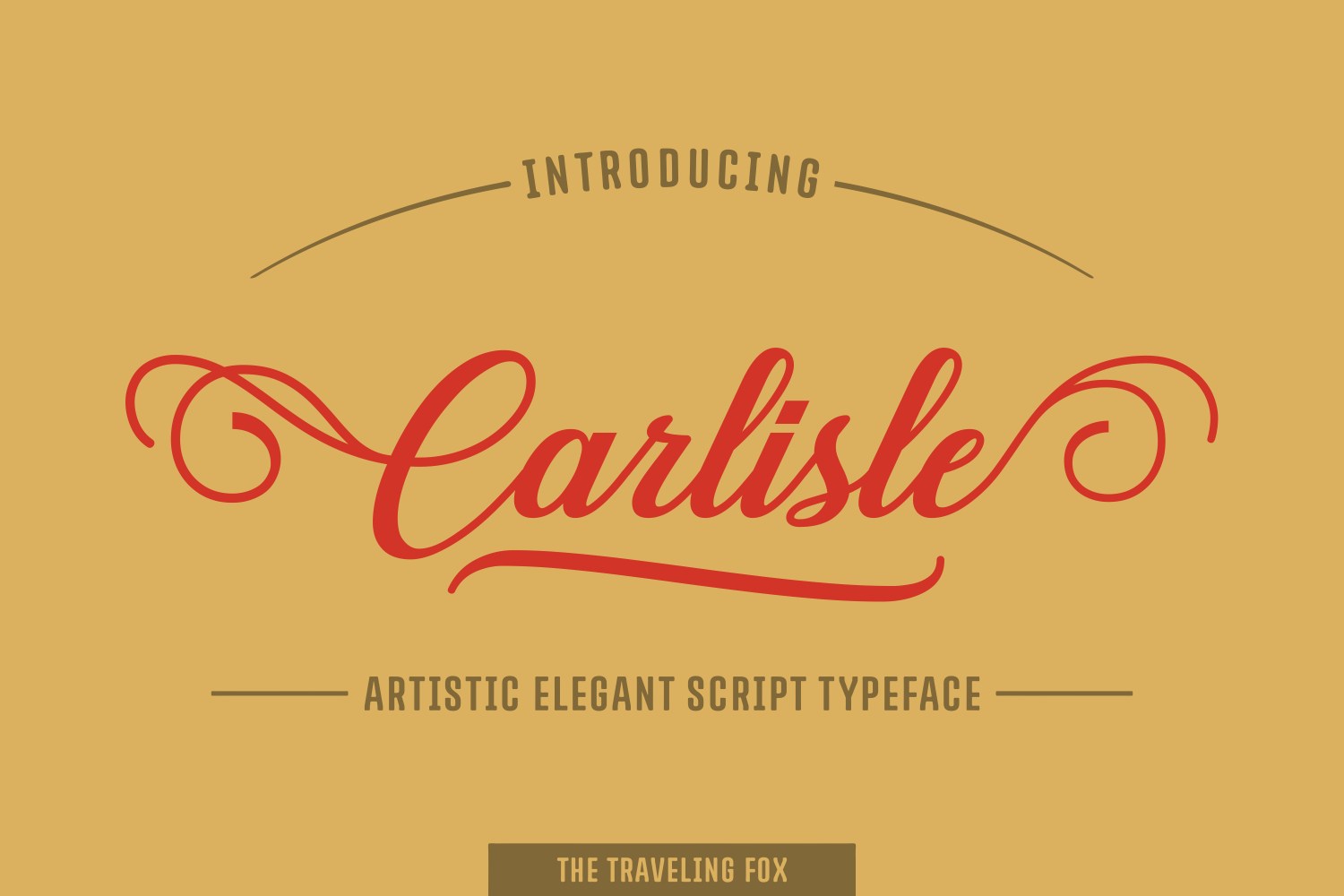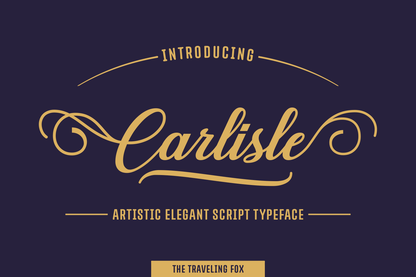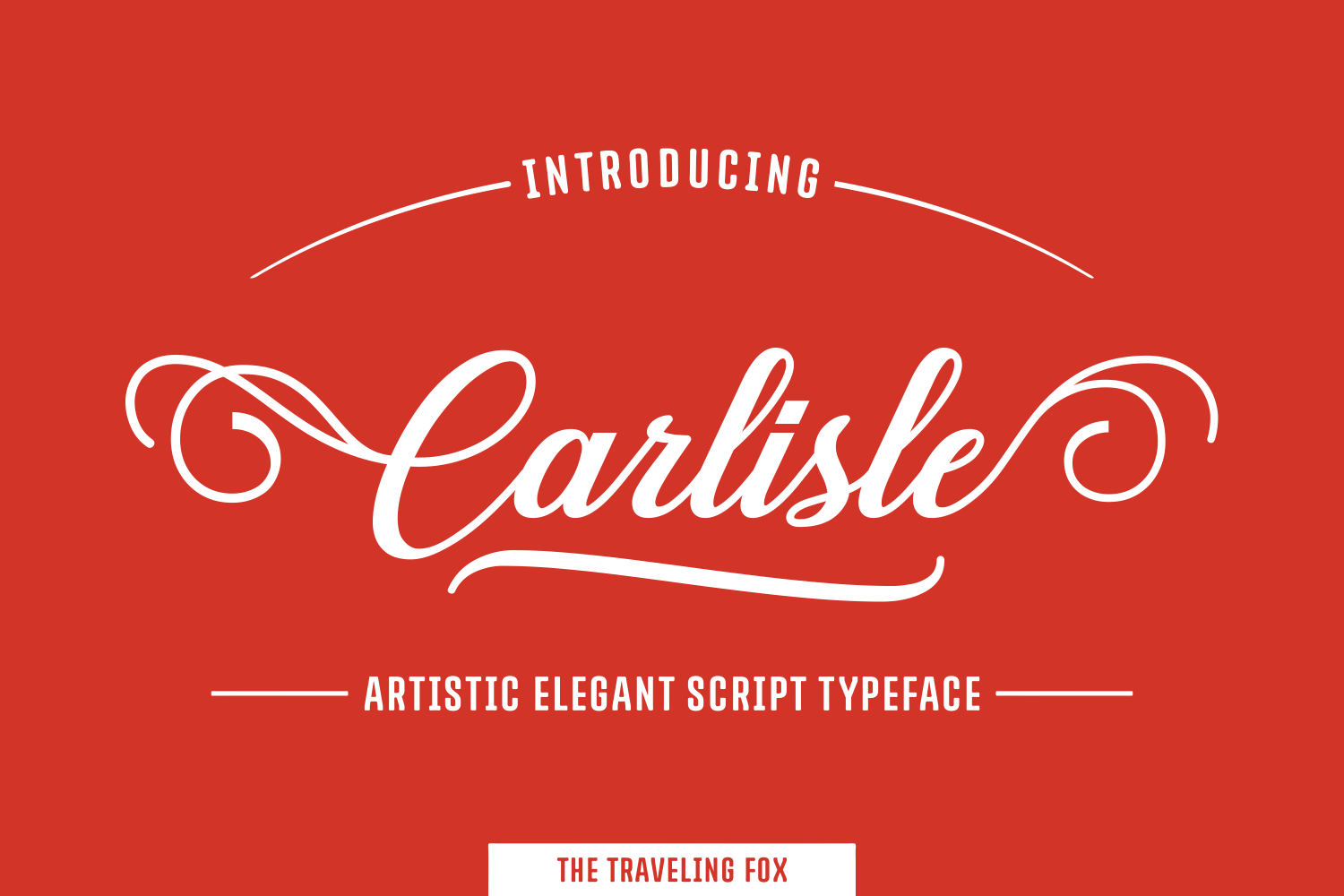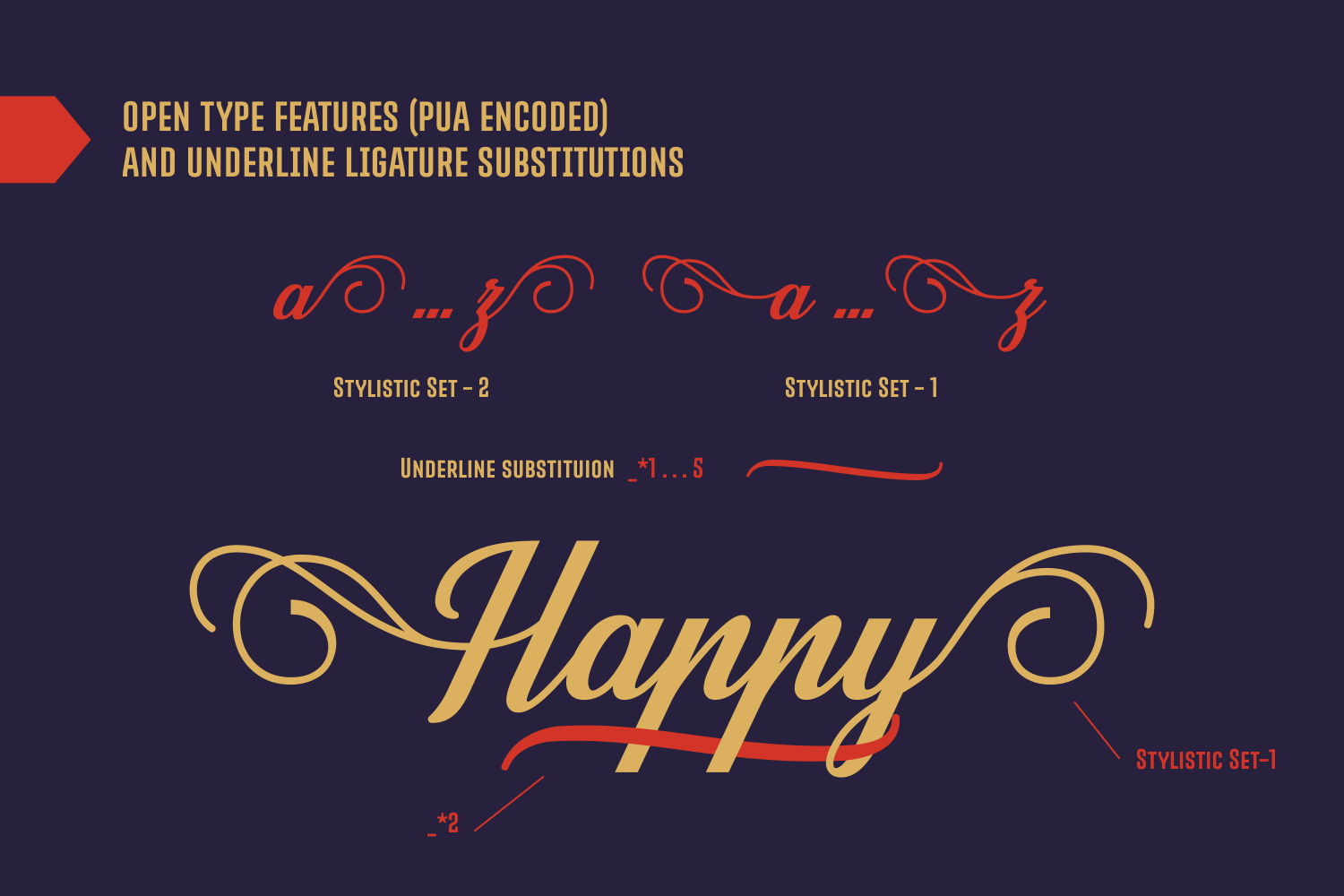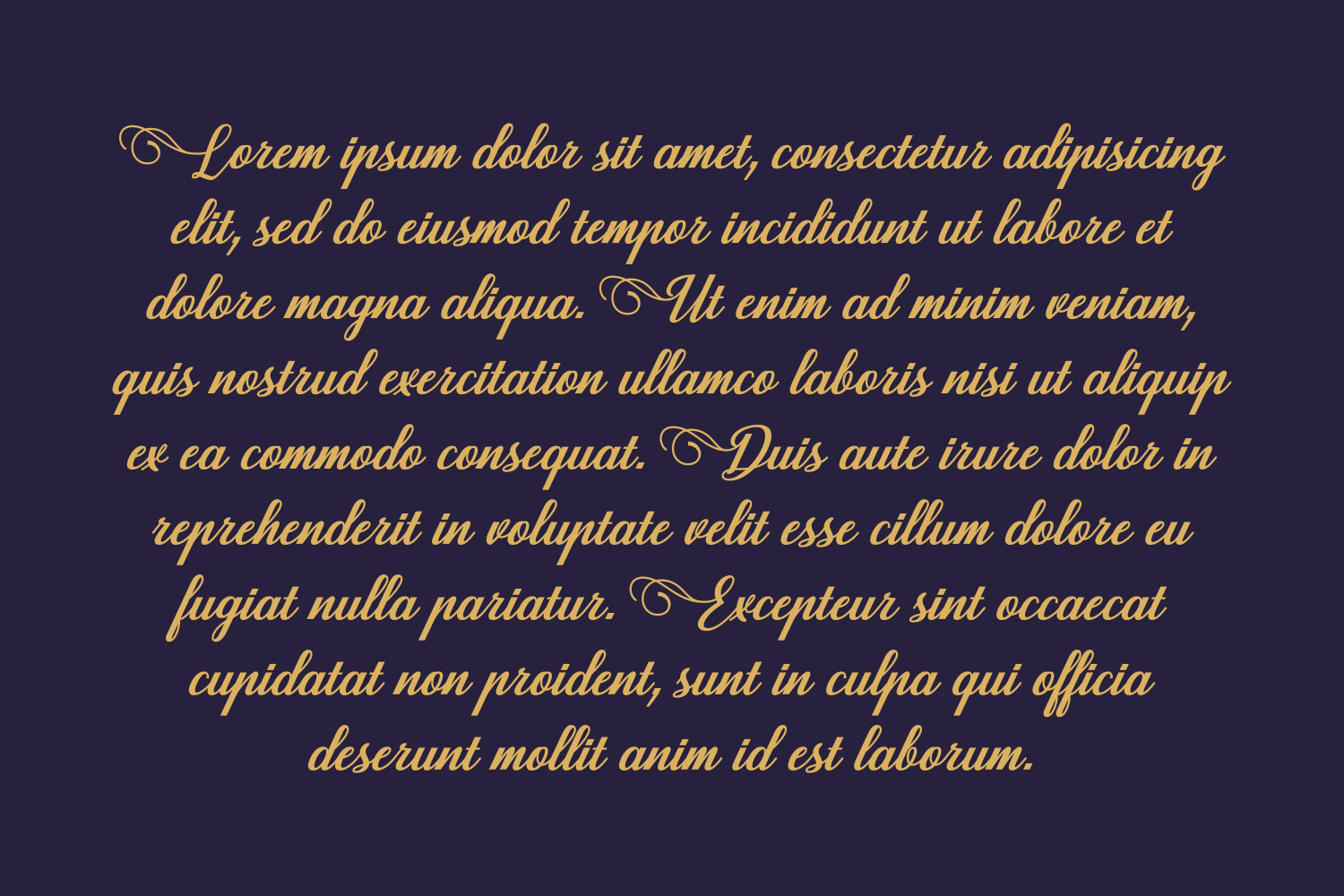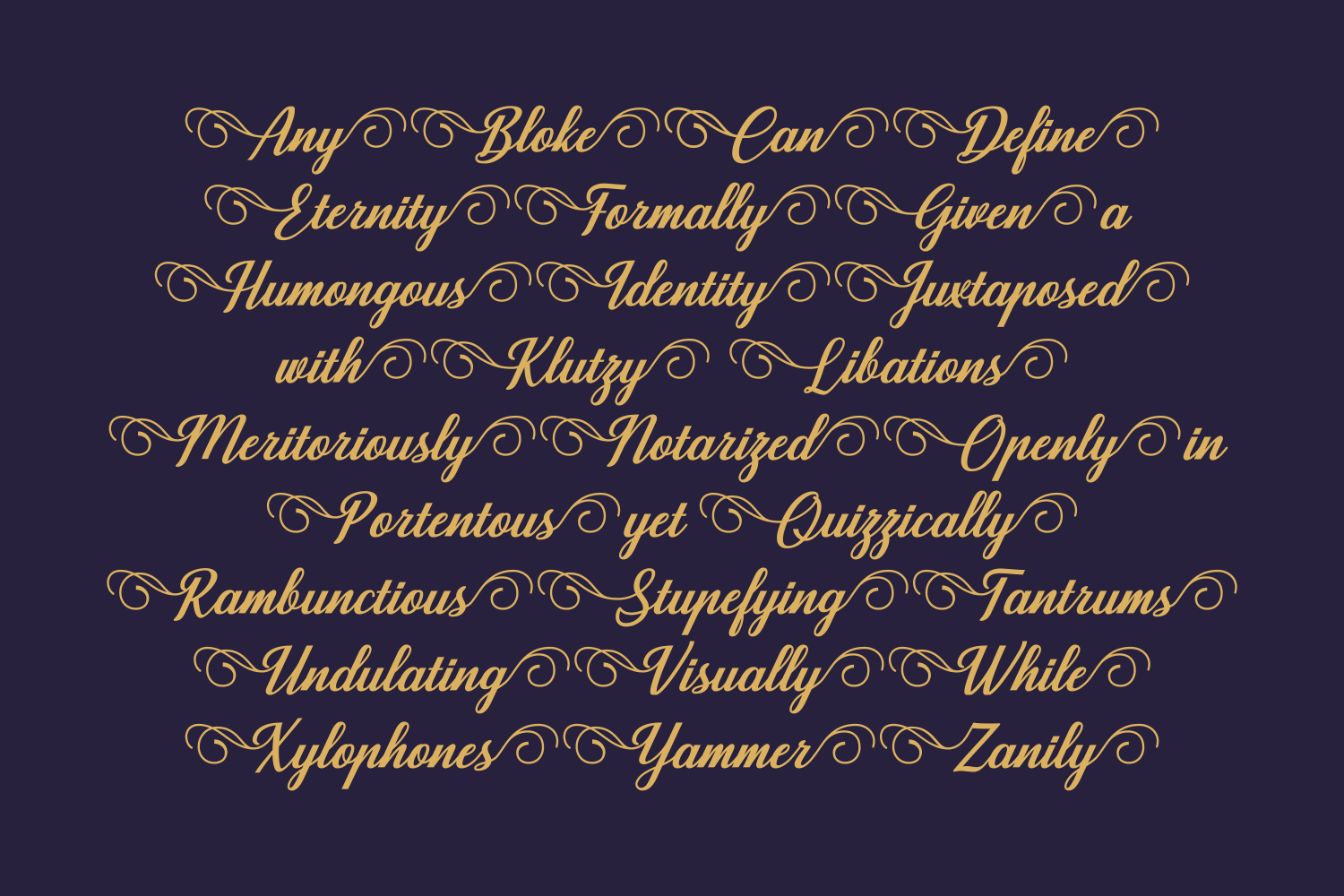
Carlisle Font
Carlisle is a stunning script font, full of flourish and elegance. Perfect for eye-catching display designs, Carlisle is a wonderfully crafted font with great alternates for truly unique typography.
Its sweeping curves and decorative swashes make it ideal for wedding stationery, upscale branding, product packaging, and elegant social media posts. With a rich set of stylistic alternates and ligatures, Carlisle gives you the tools to create expressive and personalized designs with ease. Add a touch of timeless beauty to your next project with the refined charm of Carlisle.